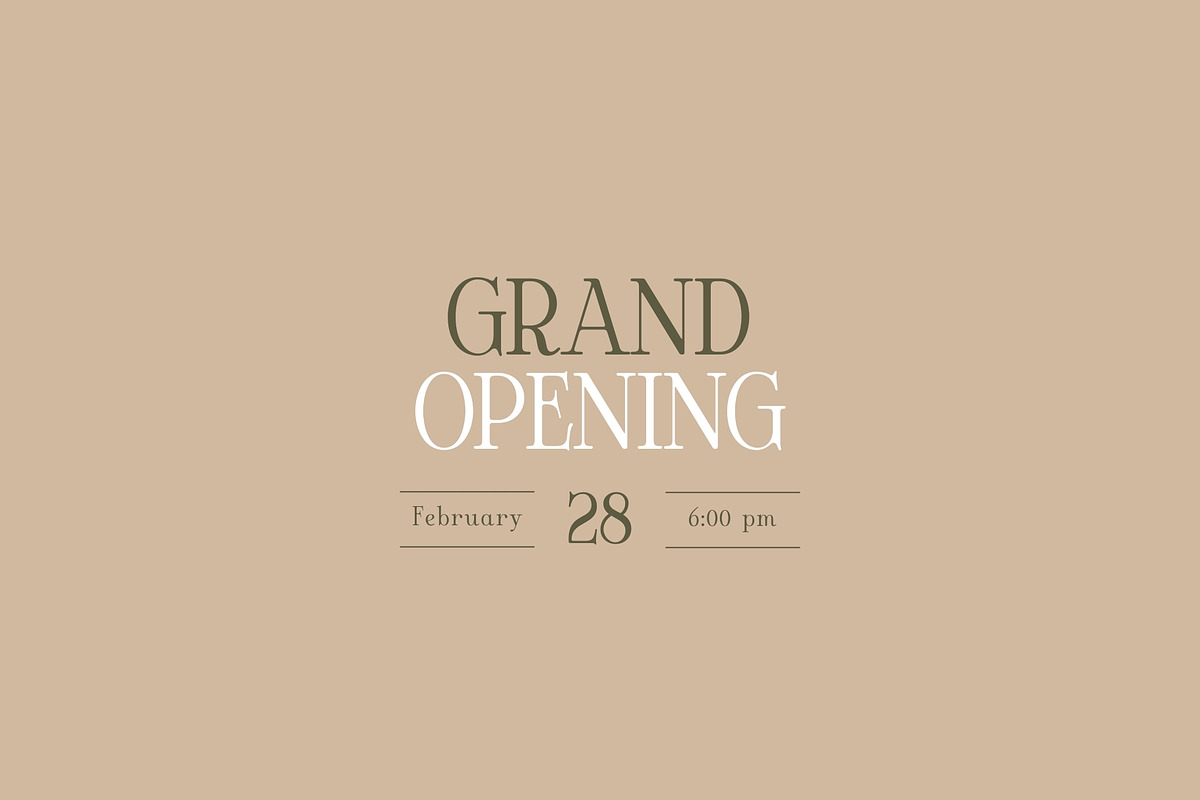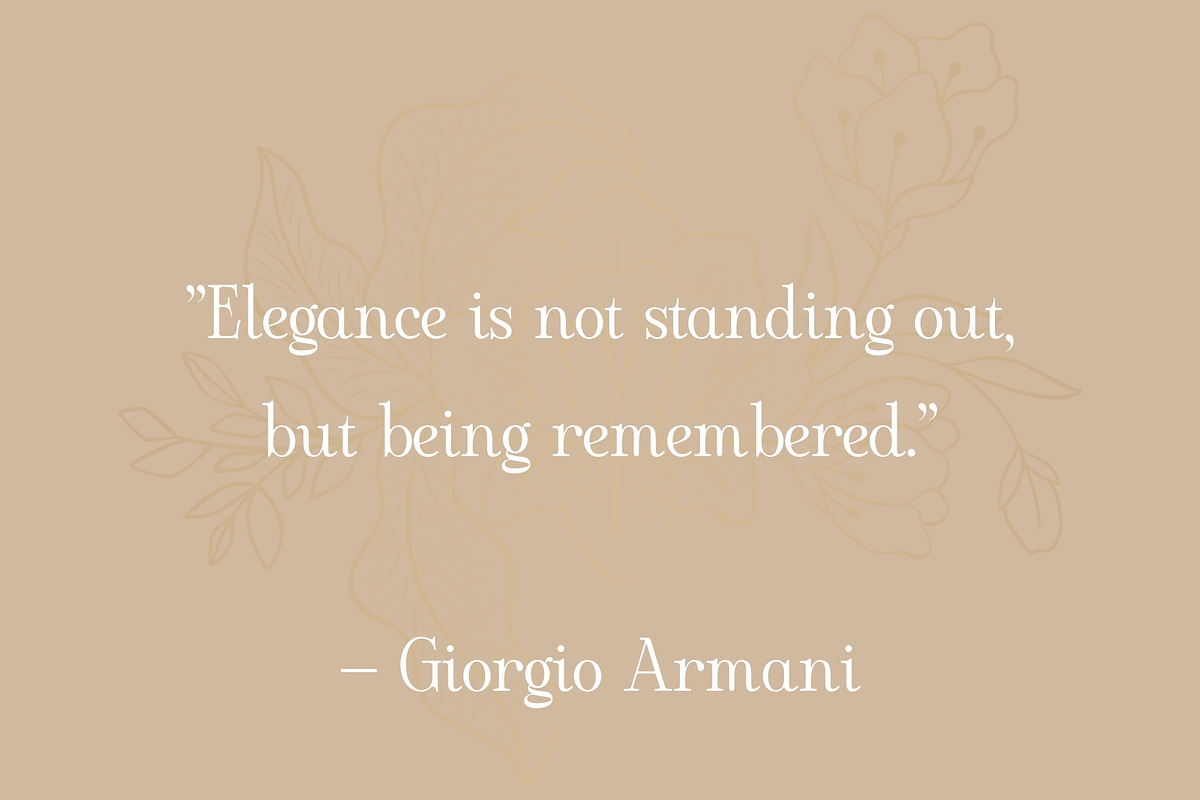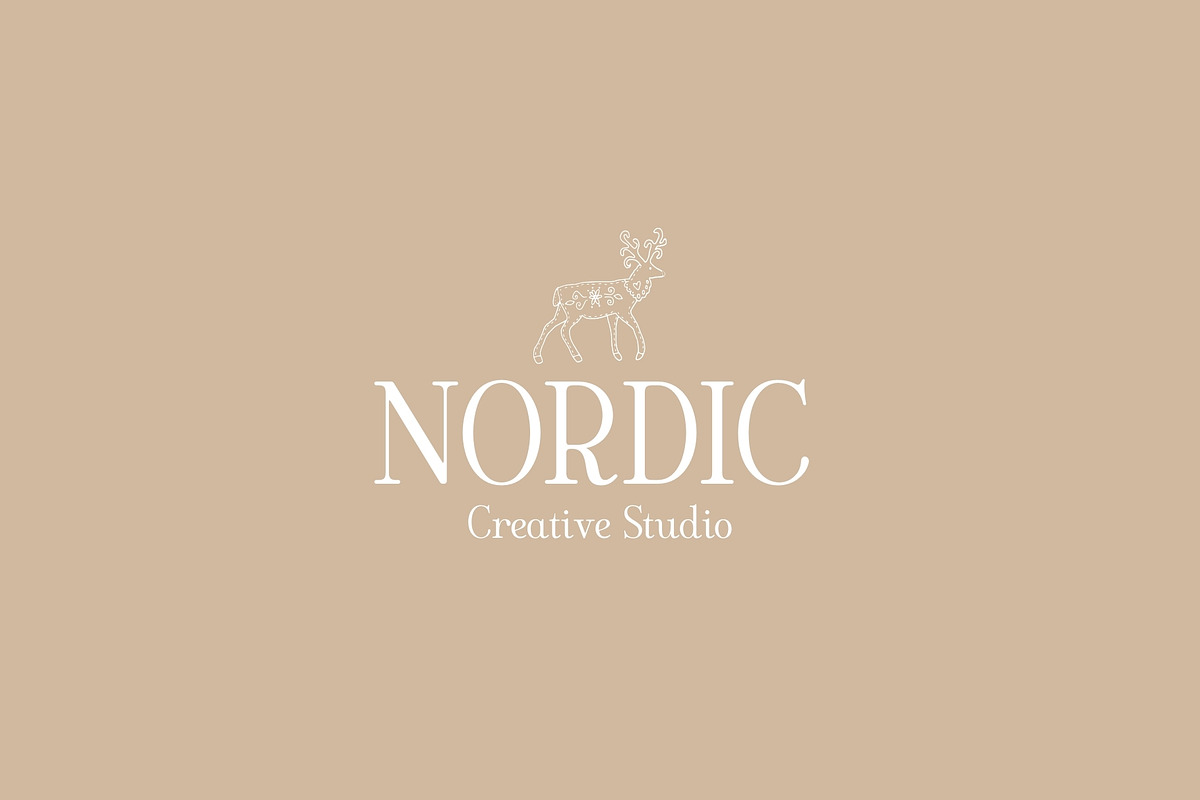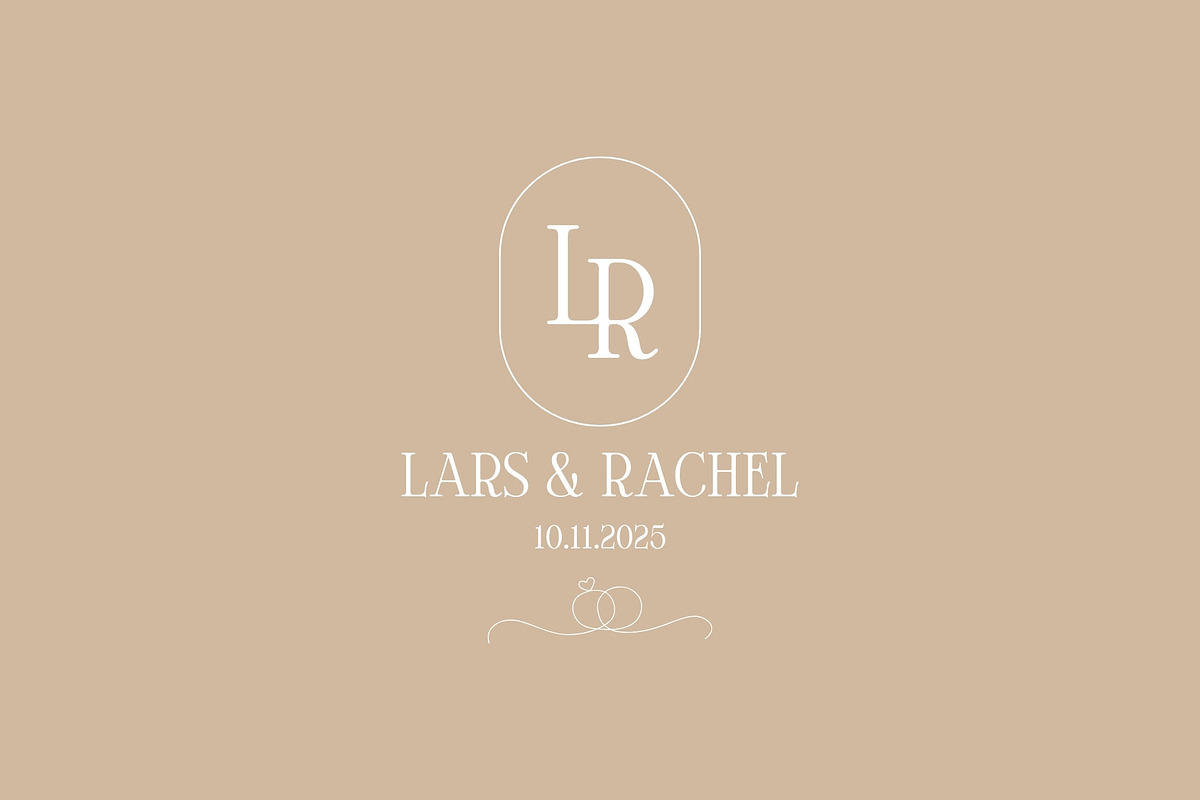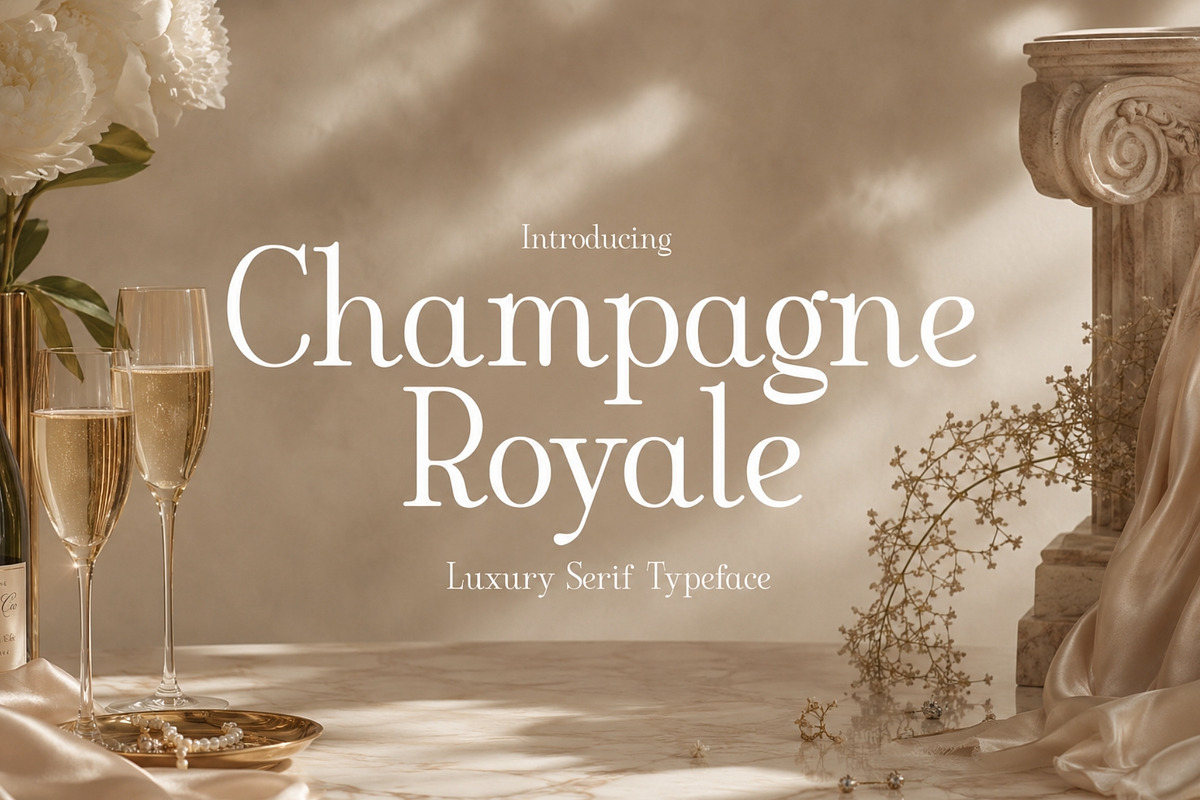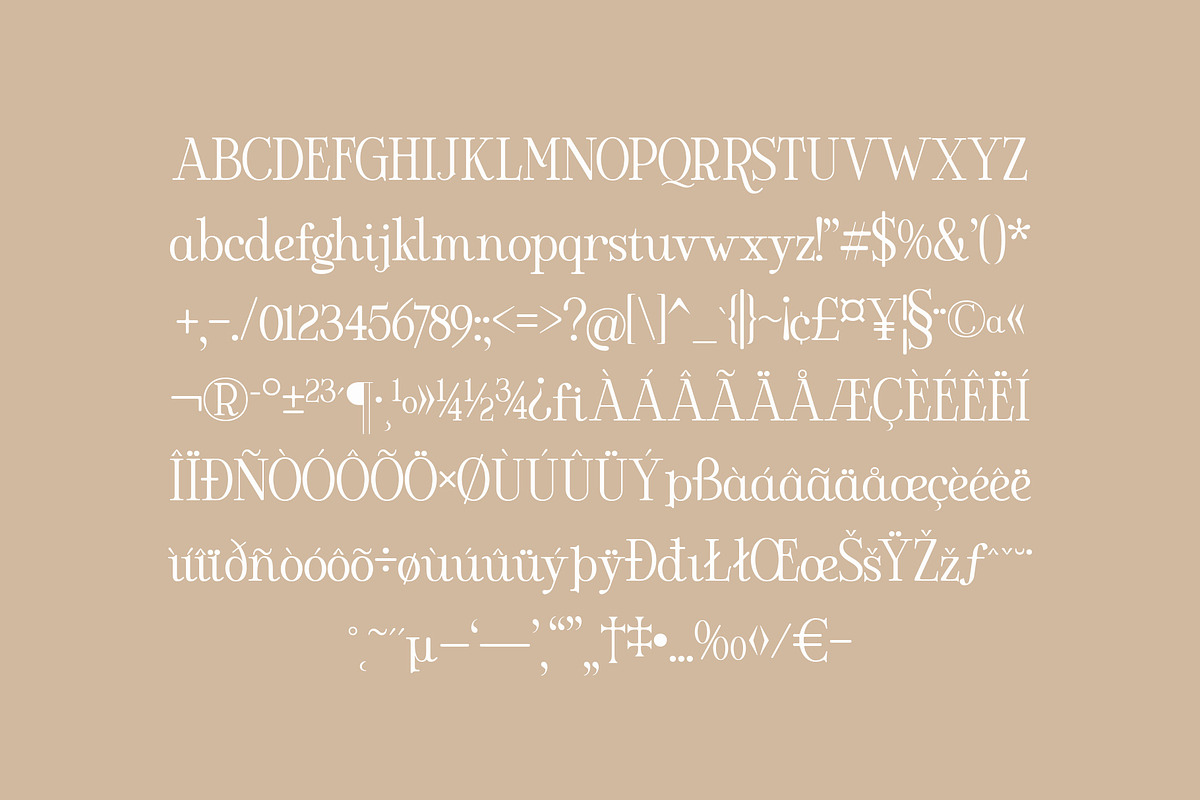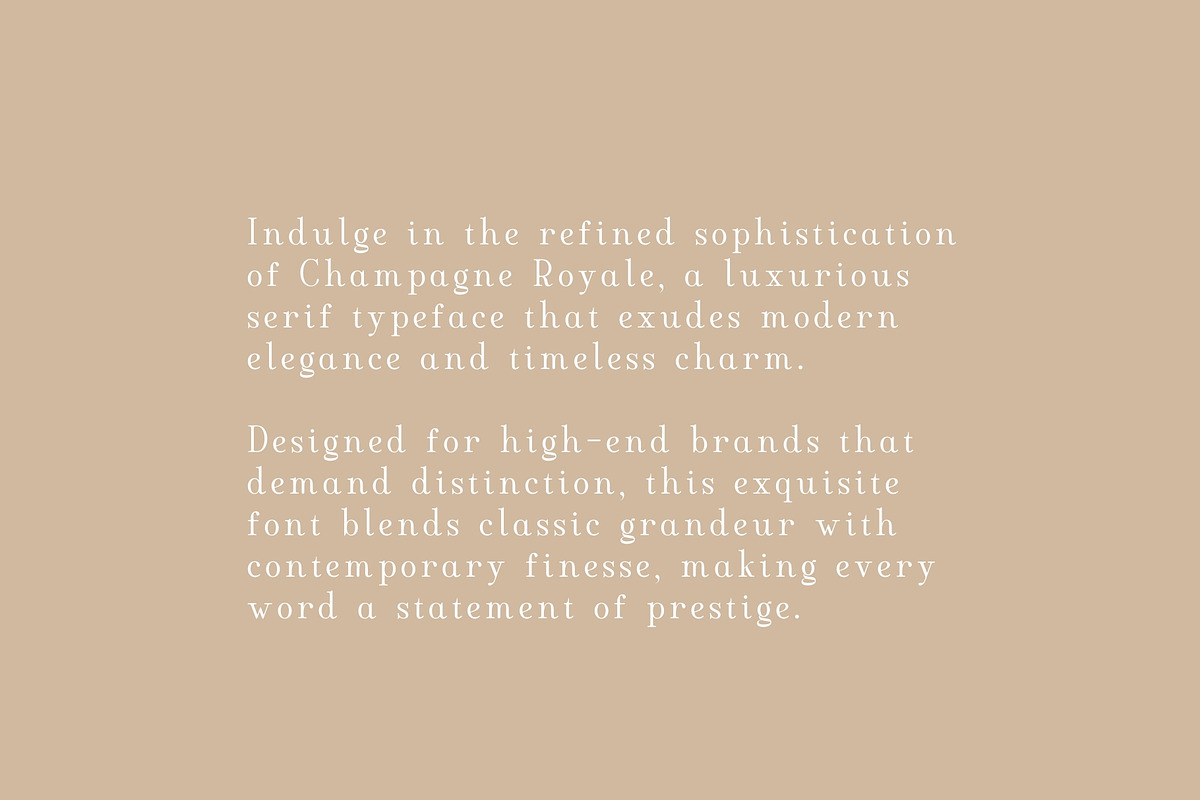
Champagne Royale – Luxury Serif
Indulge in the refined sophistication of Champagne Royale, a luxurious serif typeface that exudes modern elegance and timeless charm. Designed for high-end brands that demand distinction, this exquisite font blends classic grandeur with contemporary finesse, making every word a statement of prestige.
With its graceful letterforms, flawless curves, and impeccable proportions, Champagne Royale captures the essence of luxury, ensuring your brand stands out with effortless refinement. Whether it's for couture fashion, premium packaging, upscale editorials, or luxury branding, this typeface radiates sophistication and exclusivity.
Elevate your designs with Champagne Royale—where grace meets grandeur, and luxury is written in every letter.